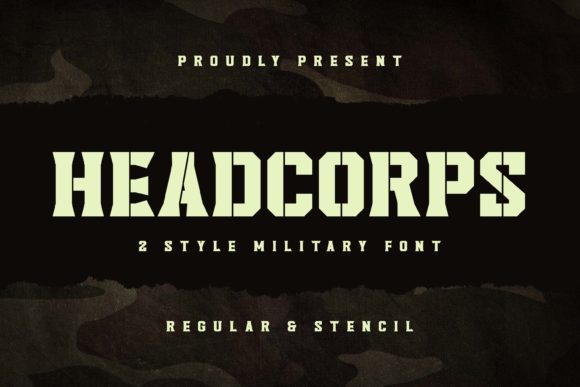
Introducing Headcorps Font, the epitome of military-inspired typography, designed to turn your creative visions into captivating realities. This display font, meticulously crafted by almarkhatype, exudes a sense of order, discipline, and unwavering strength. Headcorps Font is not just a collection of letters and symbols; it's an arsenal of visual weaponry, ready to conquer the digital battlefield.
With its clean and structured lines, Headcorps Font brings a touch of elegance and sophistication to your designs. Its bold and assertive strokes command attention, while its carefully balanced proportions ensure readability and visual harmony. Whether you're designing logos, posters, headlines, or social media graphics, Headcorps Font will make your message stand tall and proud.
Unlock the power of Headcorps Font and watch your designs transform into masterpieces of visual communication. Its versatility knows no bounds, effortlessly adapting to a wide range of creative endeavors. Unleash your imagination and explore the endless possibilities that await you with this remarkable display font.
Experience the thrill of creating designs that capture hearts and minds. Headcorps Font is your secret weapon, the key to unlocking a world of visual impact and emotional resonance. Don't settle for ordinary fonts; choose Headcorps Font and witness the birth of extraordinary designs.